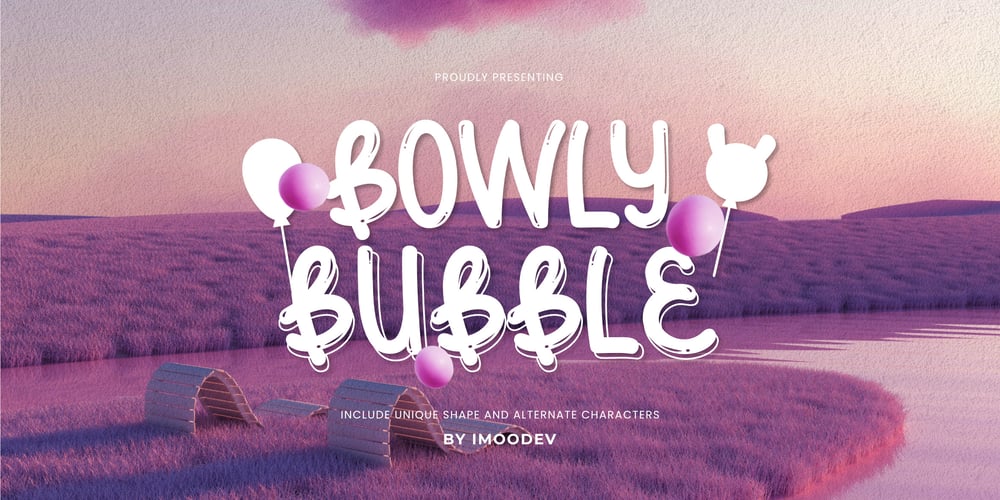
Bowly Bubble Font Family was designed by Aulia Savira Putri and published by Imoodev. Bowly Bubble contains 1 styles and family package options. Bowly Bubble is a bold bubble font that has smooth curves and a visual style a can embodies charm and elegance in every lettering, making your work look stunning and attractive.A versatile font that works in both uppercase and lowercase sizes, suitable for a wide variety of projects such as a display font for headings, logo fonts, invitations, branding, magazine, photography, card, product packaging, product mockup, mugs, posters, labels, editorials, art deco, and any type of advertising purpose.